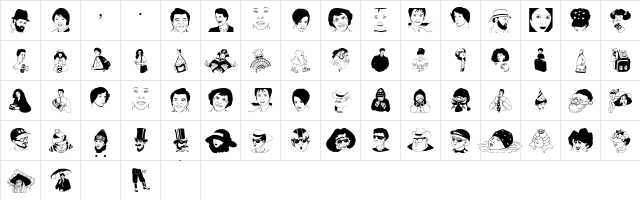
LadiesGentlemen Regular Font Preview
LadiesGentlemen Regular
Design Context for LadiesGentlemen Typeface
LadiesGentlemen is a composed and adaptable typeface that performs quietly and consistently across a wide range of design contexts.